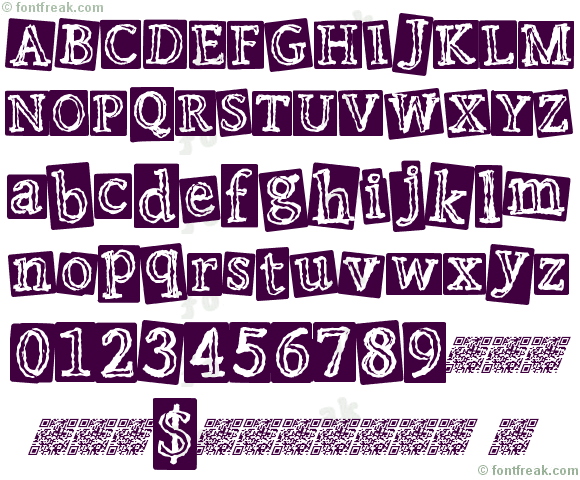
PunkEvent
About PunkEvent
PunkEvent by Xerographer Fonts is a striking display font that captures the essence of youthful rebellion and creative expression. With its unique, hand-drawn aesthetic, PunkEvent falls into the decorative category, making it perfect for various artistic projects. The font features a playful stroke weight that offers a mix of boldness and whimsy, with a rugged texture that gives it an authentic, DIY feel. The irregular spacing and jagged edges evoke a sense of spontaneity, making it an eye-catching choice for designs that aim to stand out.
Ideal for a range of applications, the PunkEvent font is particularly well-suited for event posters, music album covers, and streetwear branding. Its energetic vibe makes it a fantastic option for creating engaging social media graphics and promotional material for indie events. Graphic designers will find this font a versatile addition to their toolkit, while small business owners can leverage its distinctive style to attract attention to their products or services. Content creators looking to infuse their work with personality will also appreciate the boldness and character of PunkEvent.
What sets PunkEvent apart is its ability to convey a sense of fun and rebellion while remaining highly readable. This balance makes it an appealing choice for both casual and professional projects. Whether you’re designing for a music festival or crafting promotional materials for a local art exhibit, this font adds a layer of excitement that resonates with a wide audience. Don’t miss your chance to enhance your creative projects with this distinctive typeface; PunkEvent font free download is available now for those ready to make a statement in their designs.